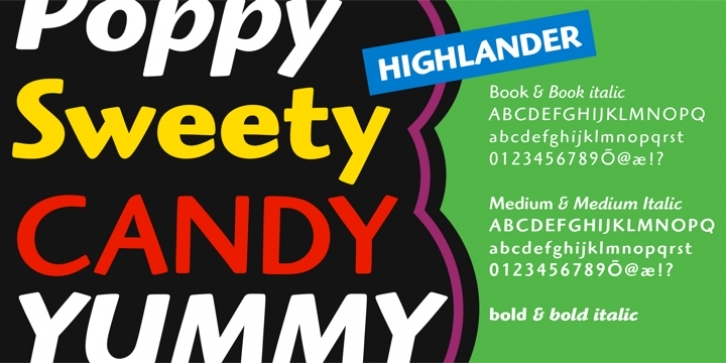
ITC Highlander was designed by Dave Farey and published by Adobe. ITC Highlander contains 6 styles and family package options.
ITC Highlander was released in 1993 and is yet another tribute by David Farey to the American type designer Oswald Cooper. Farey modeled his sans serif design on the handlettering of Cooper, maintaining the original feel with the type's diminutive x-height and the uneven letter strokes. The terminals on ITC Highlander, unlike most sans serifs, are soft, and create a sans serif that Farey finds to be more readable; the accompanying italic is a simple cursive design.